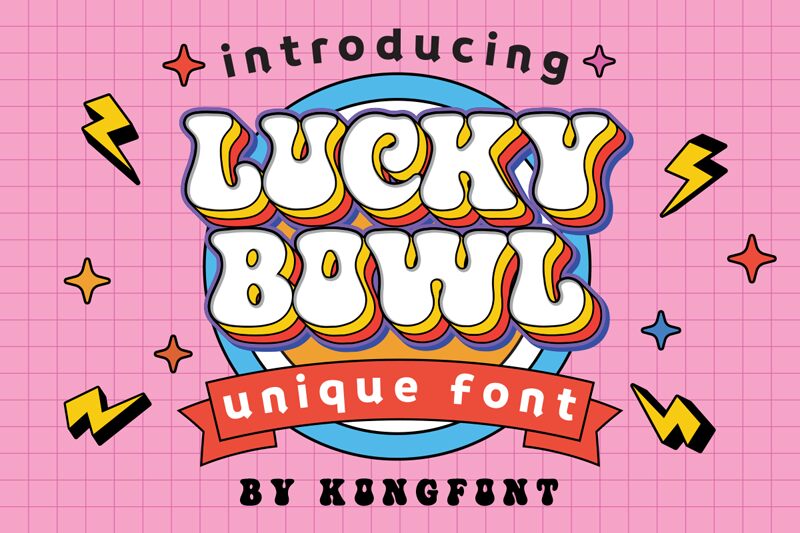
Lucky Bowl font, designed by Kong Font, is a free groovy typeface with a retro-inspired charisma. Bursting with vibrant, youthful energy, this font is reminiscent of the playful and bold designs of the 1960s and 1970s. Its dynamic essence makes it eye-catching and instantly engaging. Lucky Bowl font is groovy and chunky; its bold appearance can make any text pop out, especially when used with solid lively colors.
Use this font to decorate your posters, flyers, book covers, album headlines, social media images, and magazine covers. It is suitable for creating vintage product packaging, labels, branding ideas, logos, and signs as it focuses on drawing maximum attention.